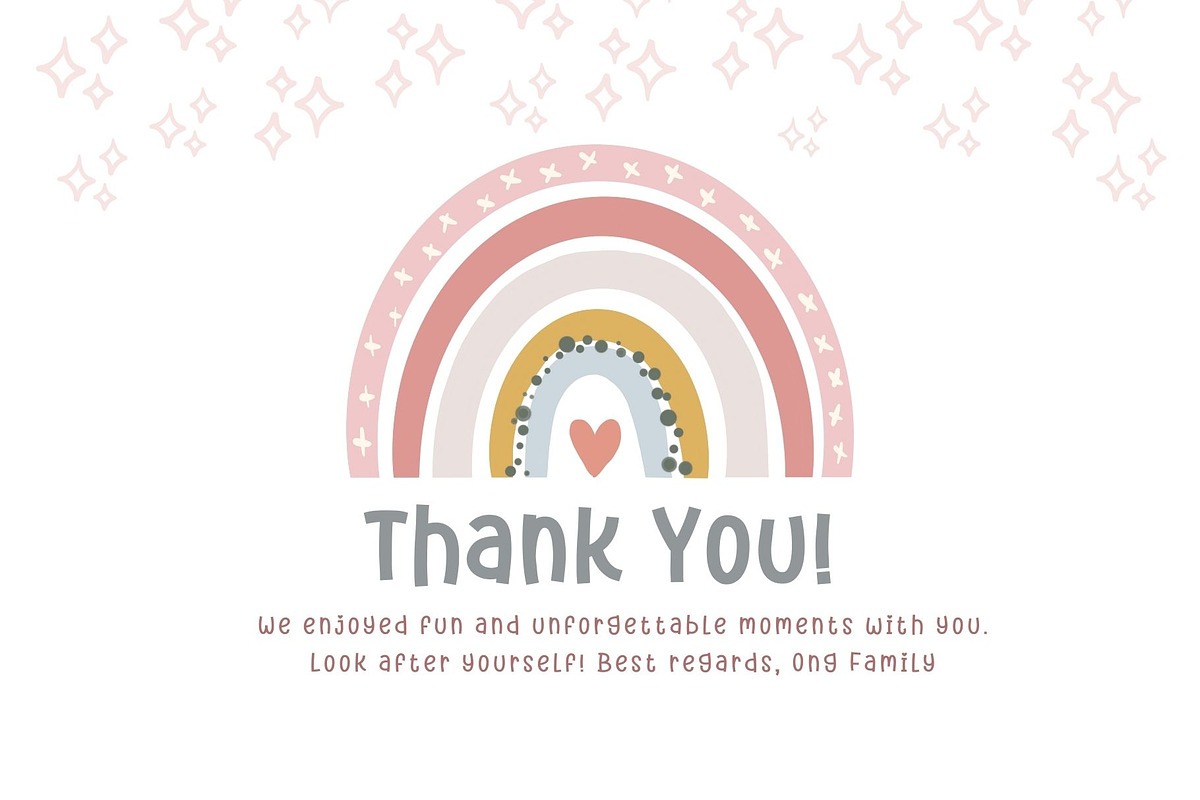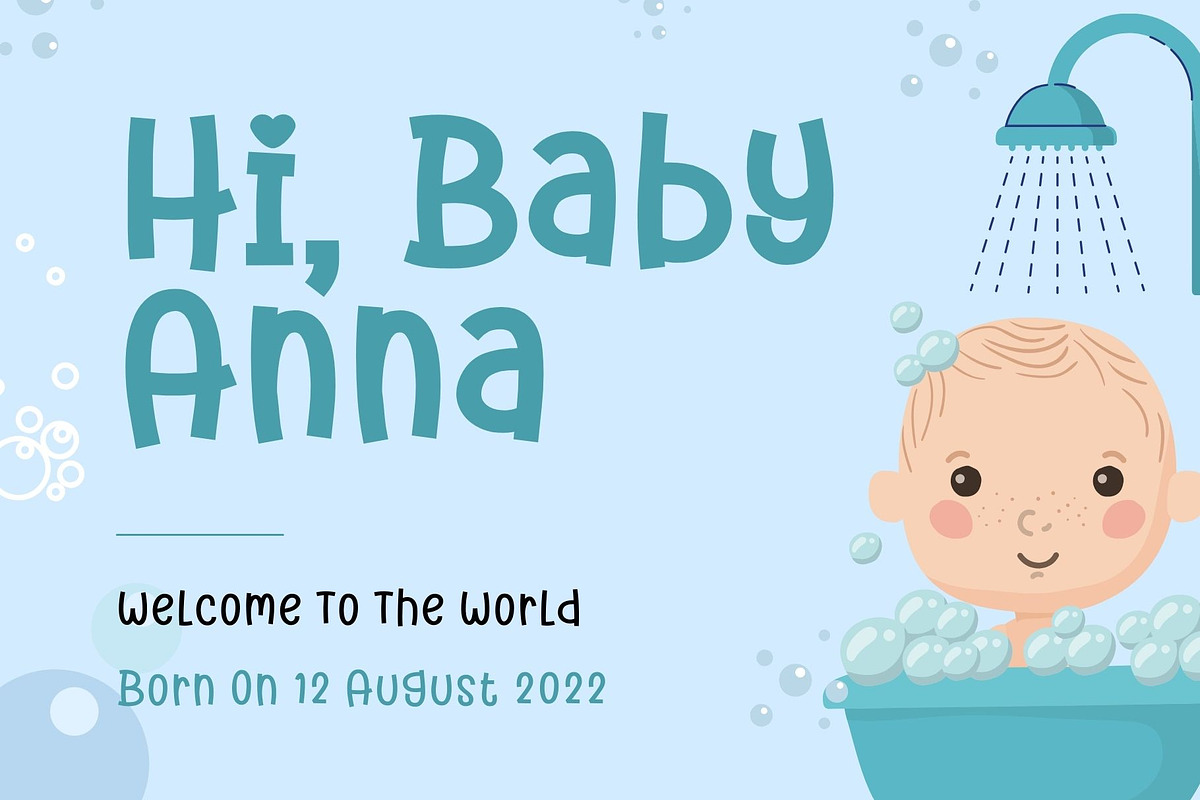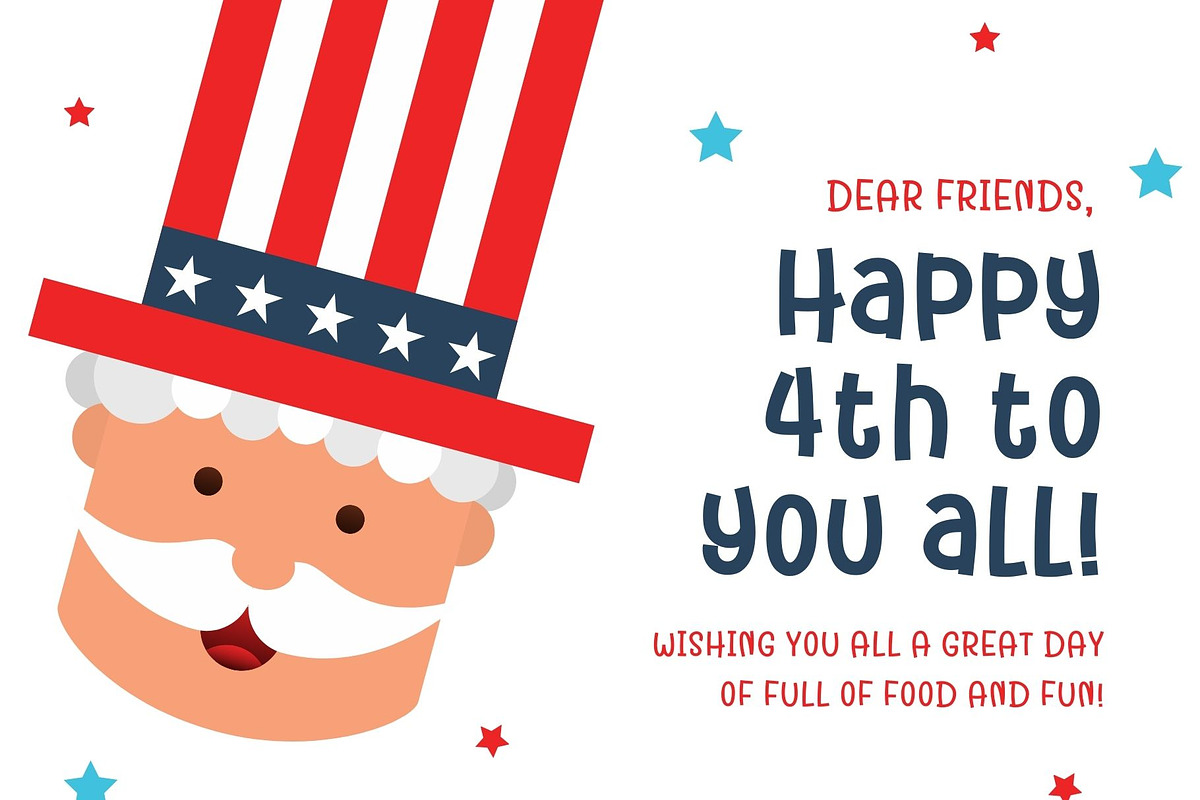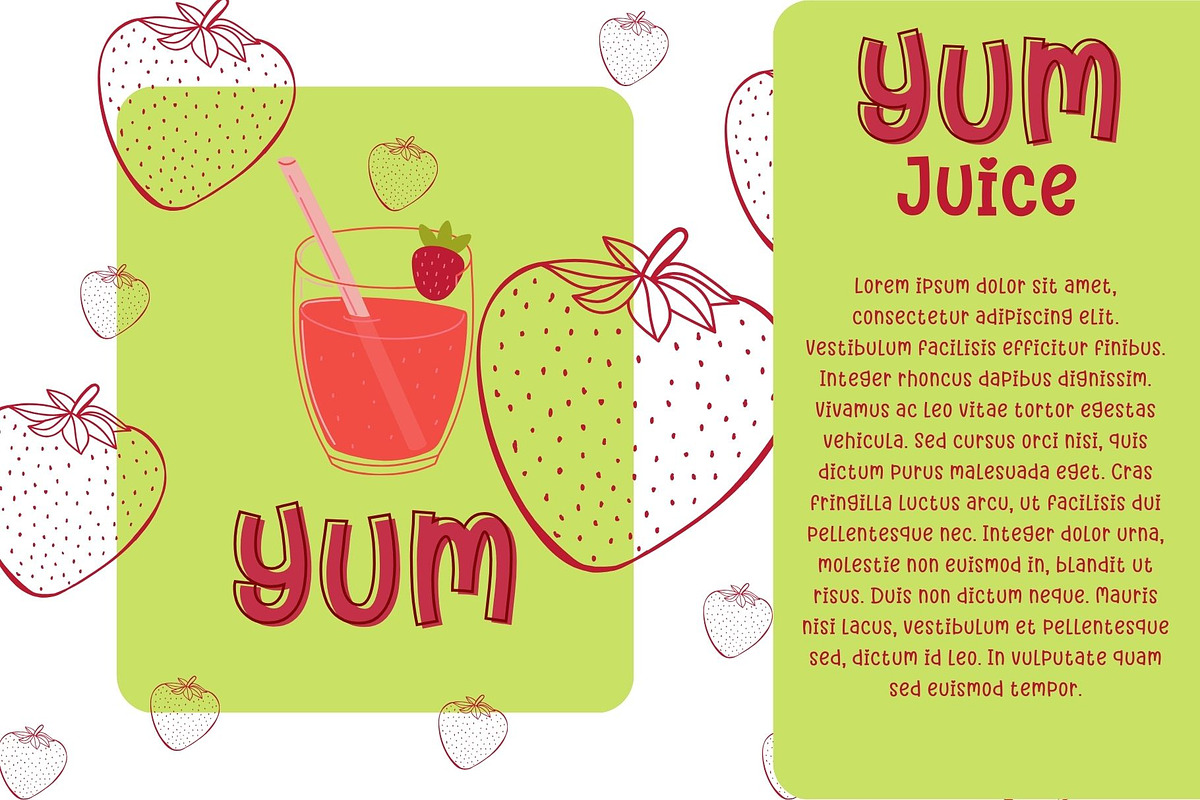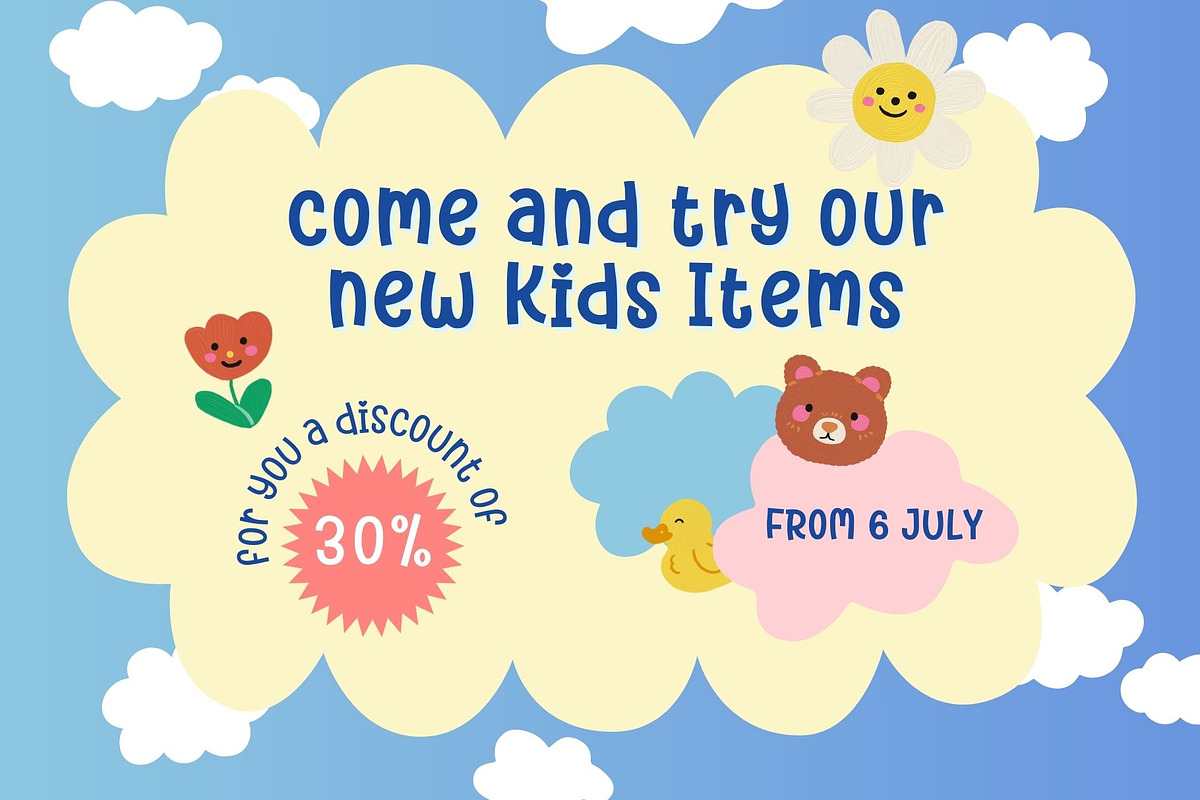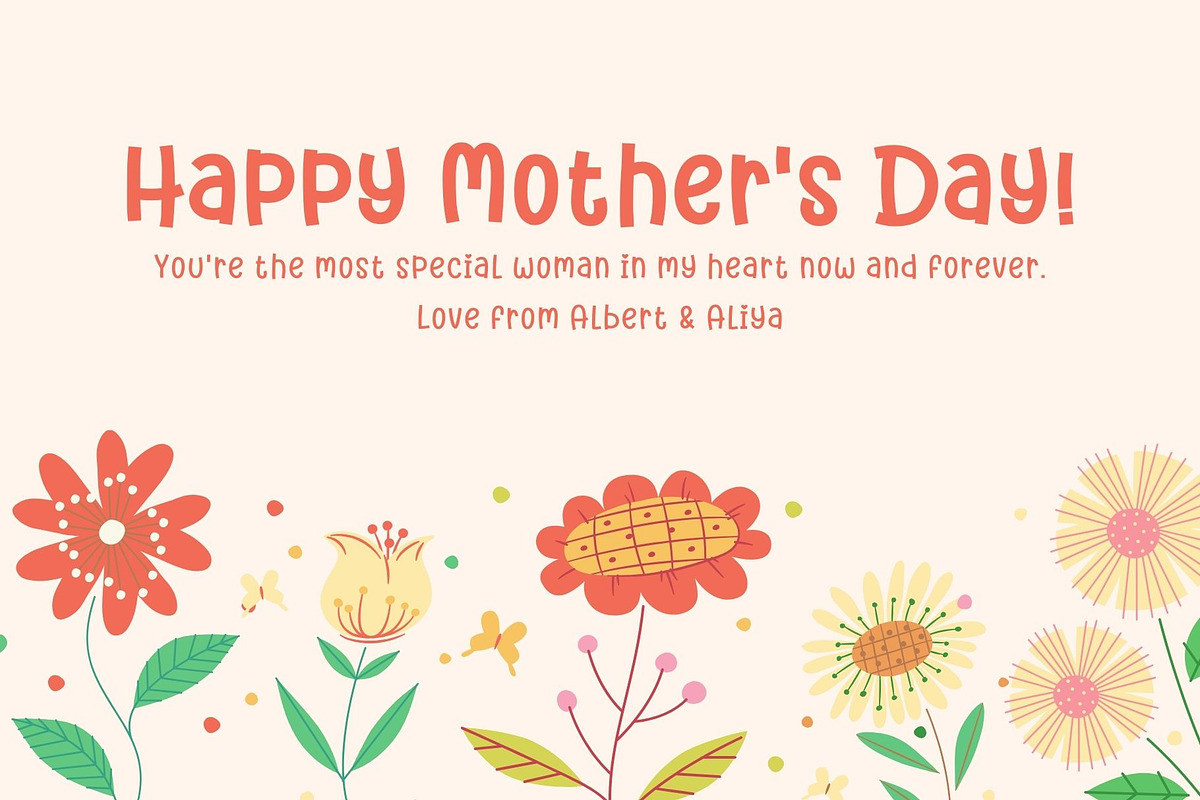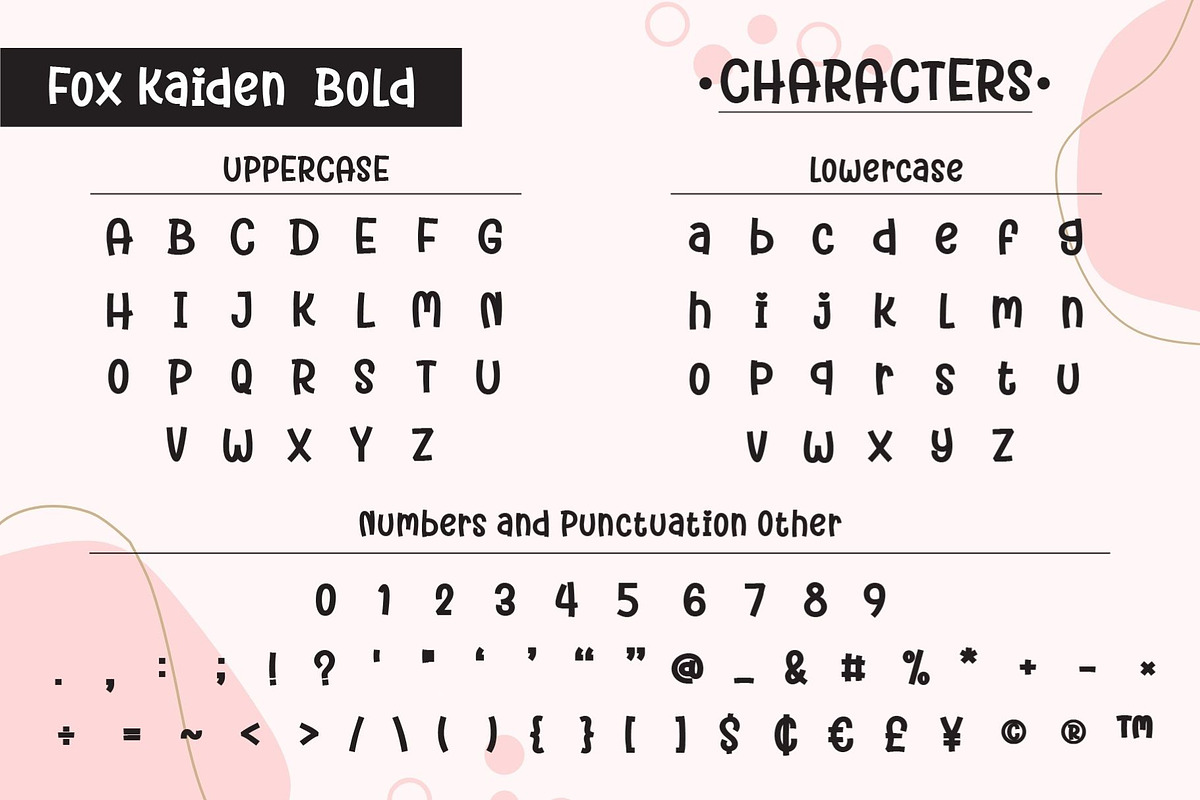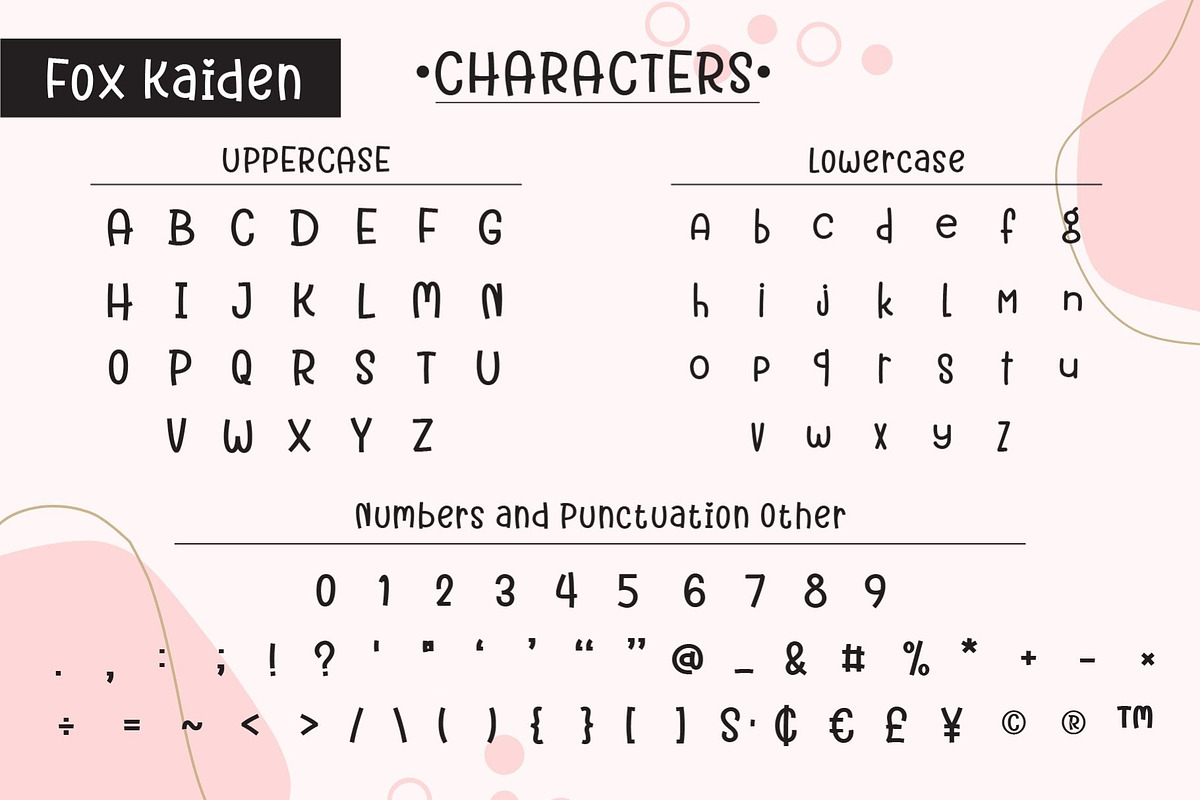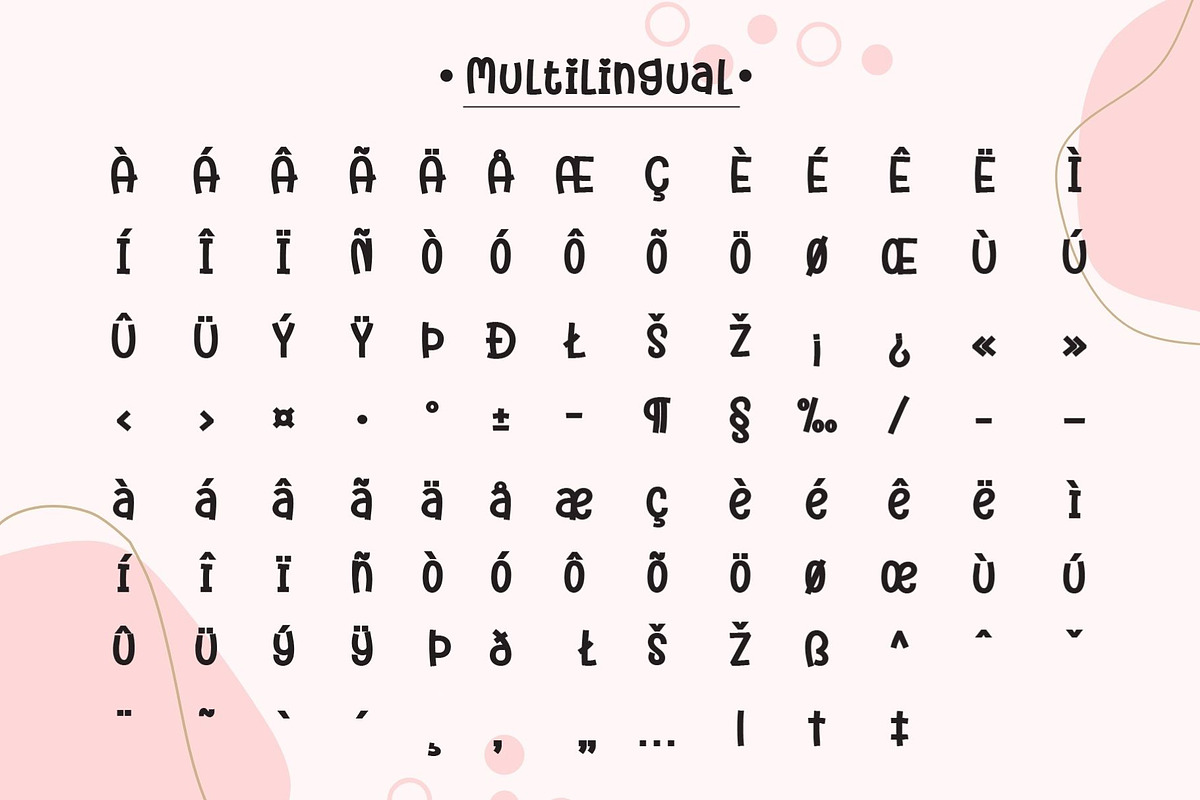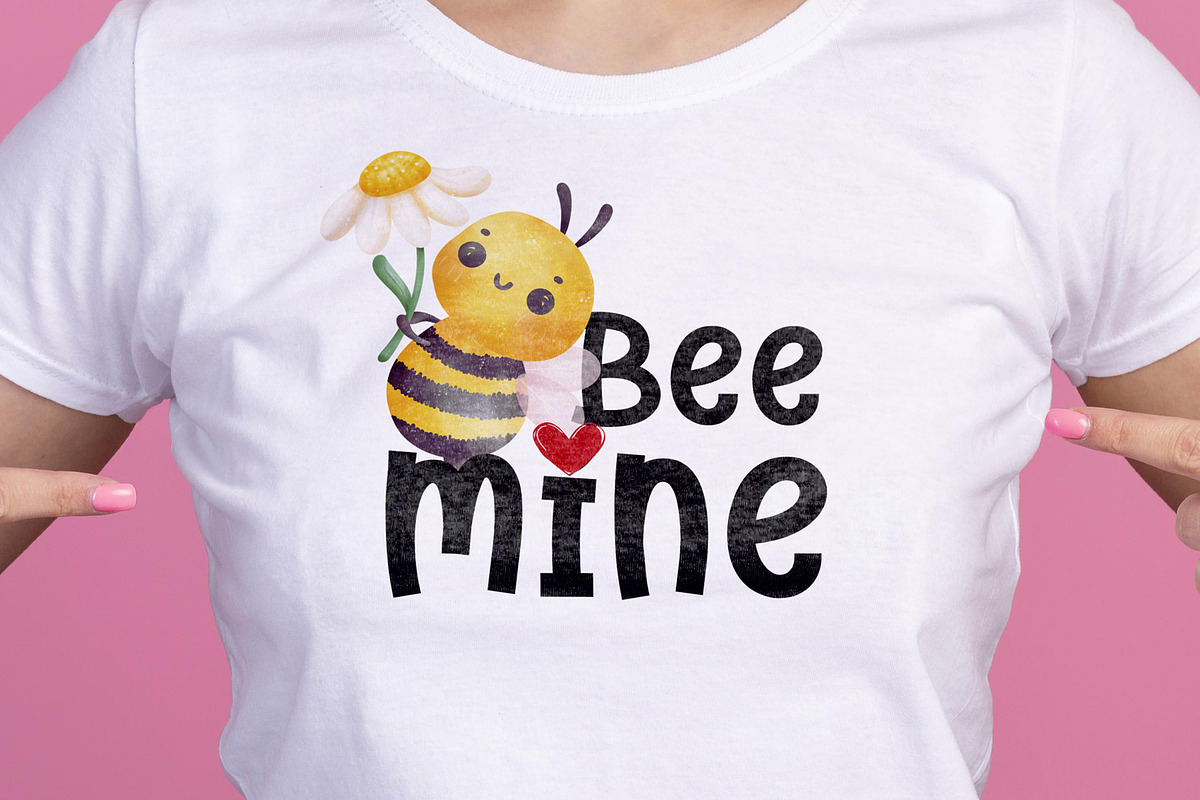
Fox Kaiden Font
Fox Kaiden It's a bold, regular, and playful display font that adds a captivating and energetic touch to your designs. Its main feature is its vibrant and expressive design, allowing you to create attention-grabbing headlines, t-shirt typography, banners, product labels, and more. With its versatility and eye-catching presence.